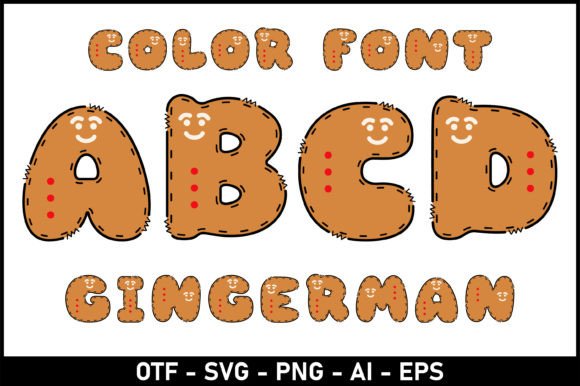
Adorn your designs with an extra splash of life and vibrancy, introducing Gingerman Font, a playful and artistic font family that's sure to make your projects pop. These fonts are not just another addition to your collection; they're a creative journey waiting to be embarked upon. Crafted with meticulous attention to detail, each character in this font family is a work of art, exuding charm and personality.
With Gingerman Font, you have the power to transform ordinary designs into captivating creations. Its colorful and whimsical nature is a perfect match for children's books, posters, invitations, and greeting cards, where you want your words to ignite imagination and pure joy. Imagine the smiles on your little ones' faces as they explore the magical worlds conjured up by Gingerman's enchanting letters.